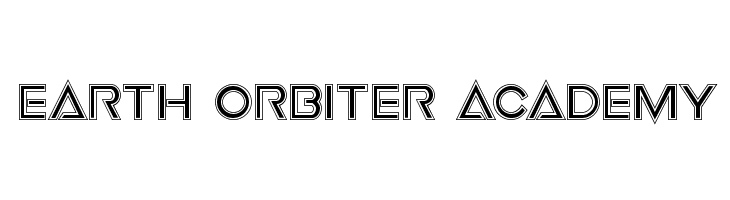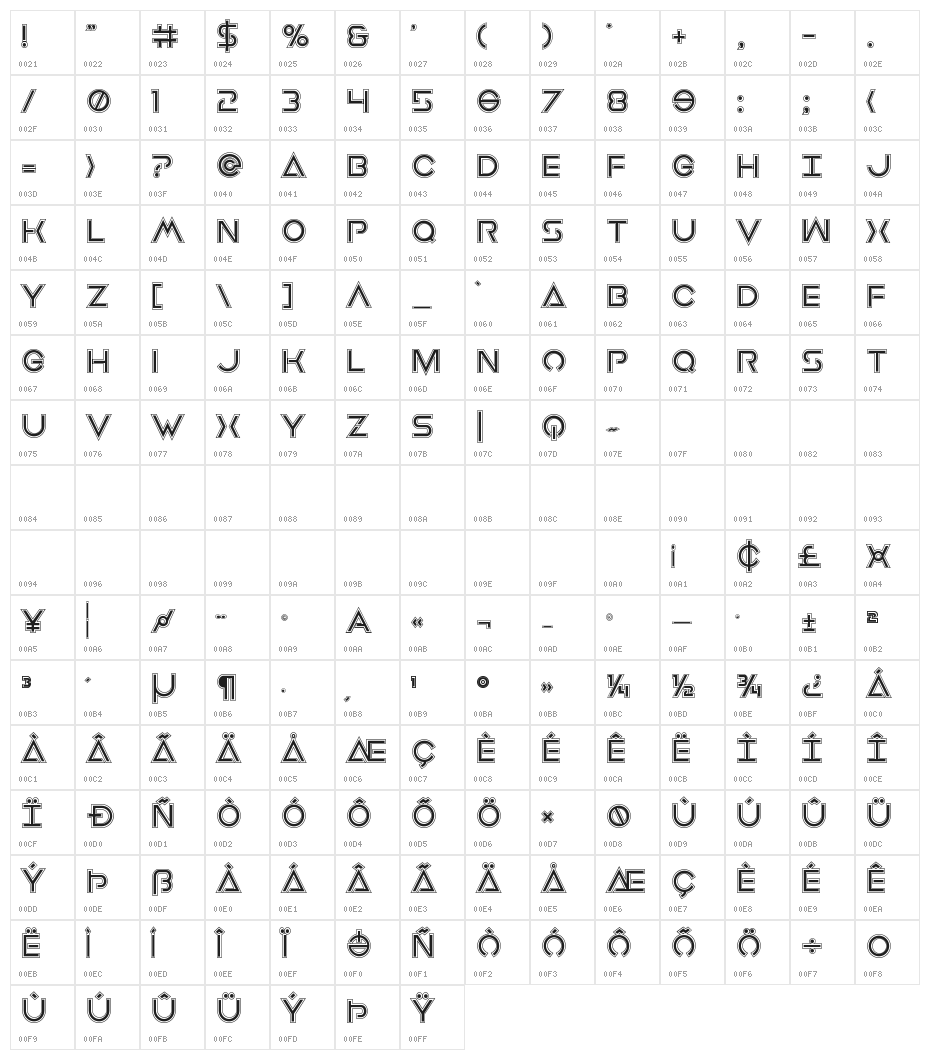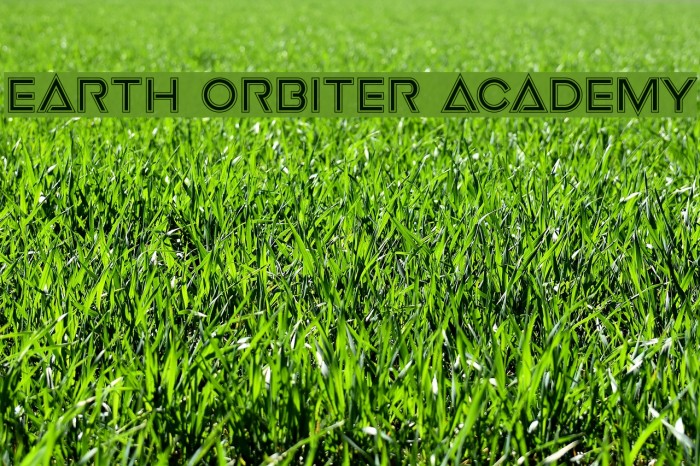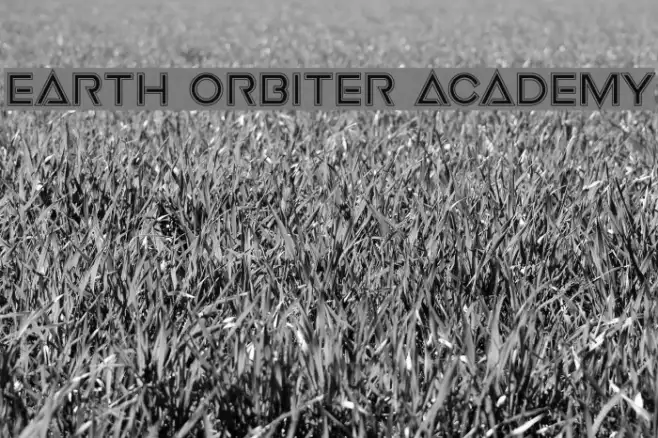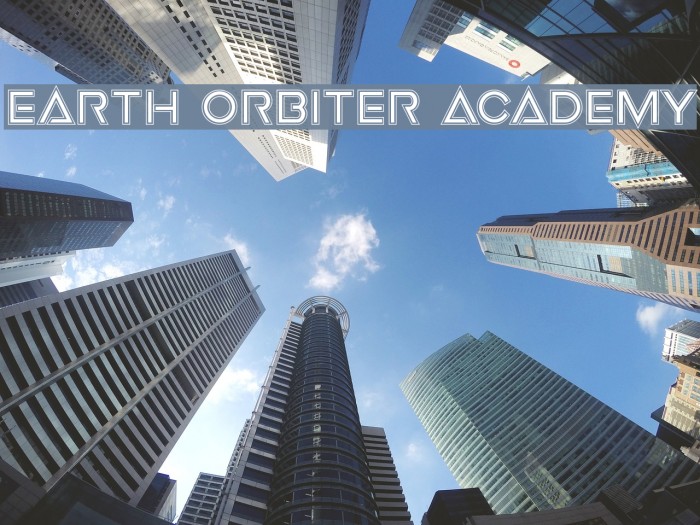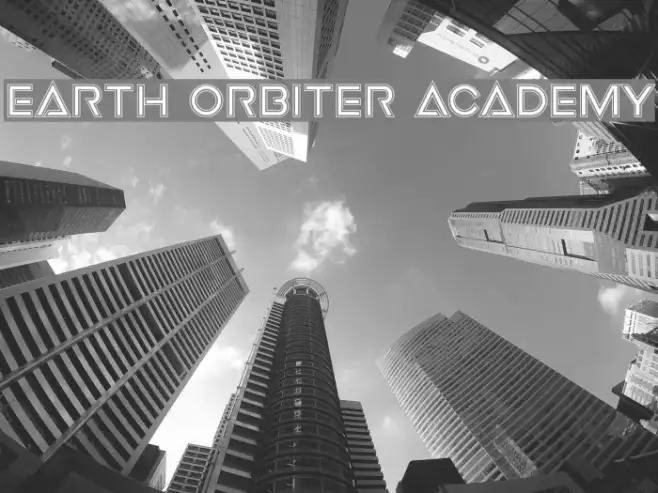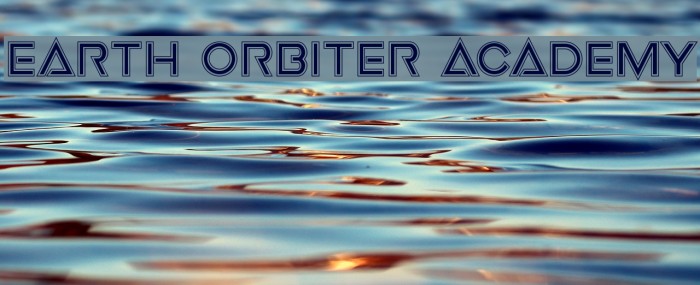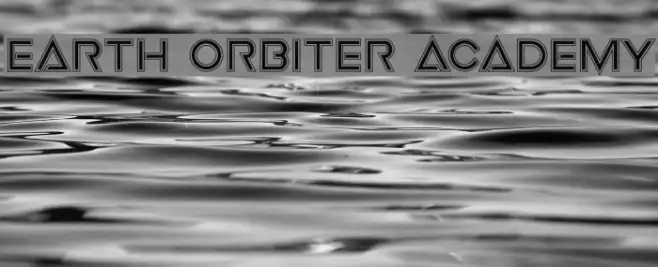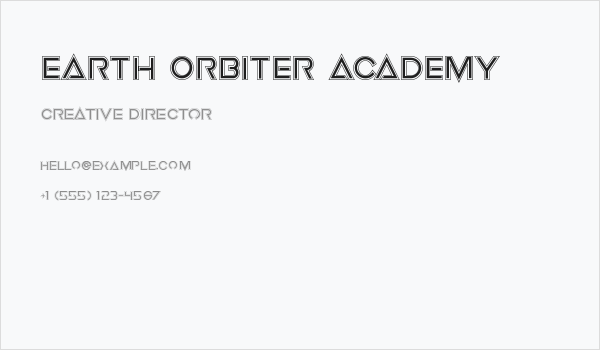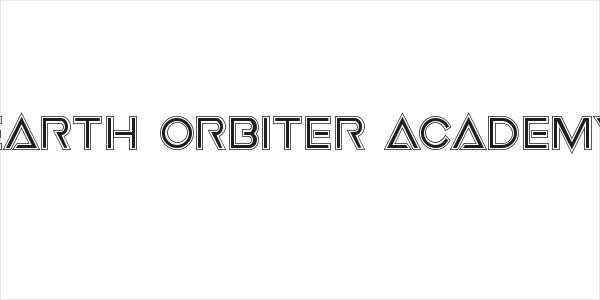
Earth Orbiter Academy Font
Earth Orbiter Academy Description
This font features a futuristic and geometric design with a double-line structure that creates a sense of depth and dimension. The characters are bold and angular, with sharp edges and a consistent stroke width that gives it a modern and technological appearance. The uppercase and lowercase letters maintain a uniform style, while the numerals and special characters complement the overall aesthetic. The font's unique design makes it stand out, suitable for projects that require a distinctive and eye-catching typeface.
| Proposed Projects | Ideal for sci-fi themed designs, technology branding, video game titles, and futuristic posters. |